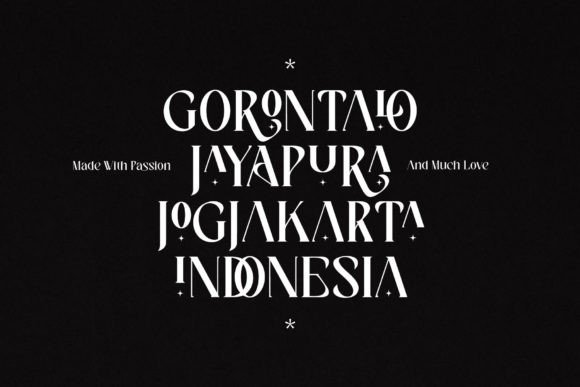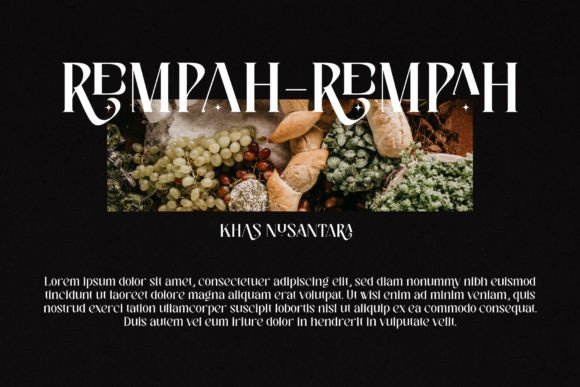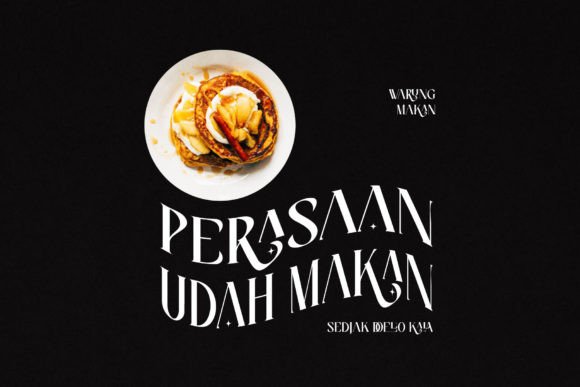
Introduction to Elruka Font
Have you ever been working on a creative project, pouring your heart and soul into it, only to realize that the perfect font is missing? This is where the Elruka Font comes to the rescue. With its classy and modern look, this versatile font is a game-changer for designers, allowing you to elevate your designs to the next level.
Whether you’re working on a logo, branding, invitation, or social media post, the Elruka Font is the perfect design resource to add a touch of sophistication and elegance. Its high-quality design makes it ideal for various applications, from wedding designs to stationery, and more. And the best part? You can download it for free, making it an accessible and valuable addition to your design toolkit.
With its transparent background and sleek lines, the Elruka Font is sure to make a lasting impression on your audience. In this article, we’ll delve deeper into the world of this stunning font and explore its many uses, so you can unlock its full potential and take your designs to new heights.
Key Features of Elruka Font
- Unique, high-quality design suitable for creative projects, including graphic design, digital art, and typography.
- Features a transparent background, allowing for seamless integration with other design elements and backgrounds.
- High-resolution design, ideal for printing and digital applications, with a resolution of up to 300 DPI.
- Elruka Font is a versatile design resource, suitable for a wide range of creative projects, from logos and branding to posters and digital art.
- Comes in a range of sizes, from small to large, making it easy to customize and adapt to different design requirements.
Honest Review: Elruka Font
I recently stumbled upon the Elruka Font, a free download that caught my attention with its unique style and high quality. As a designer, I’m always on the lookout for reliable design resources to elevate my creative projects. The Elruka Font definitely delivers.
- ✨ Unique and creative design style that adds a touch of personality to any project
- ✨ High-quality font files that ensure crisp and clear text display
- ✨ Transparent background option, making it easy to integrate with various design elements
While the Elruka Font excels in many areas, there are a few limitations to consider. For instance:
- ⚠️ Limited character set, which may not be ideal for lengthy text-based projects
Overall, I’m impressed with the Elruka Font’s potential to enhance creative projects. Its unique style and high-quality design make it a valuable addition to any designer’s toolkit. Just be sure to consider the limitations before using it for commercial purposes.
Elruka Font Overview
The Elruka Font is a high-quality design resource ideal for creative projects. With its unique style and transparent background, it adds a touch of elegance to any design. You can download it for free and use it in various applications.
Tips for Getting the Most Out of Elruka Font
For optimal results, use the Elruka Font in conjunction with other high-quality design resources. Experiment with different font sizes, colors, and effects to create a unique look. You can also use it to add a touch of elegance to your designs.
The Elruka Font is ideal for a variety of creative projects, including:
– Branding and logos
– Brochures and flyers
– Infographics and presentations
– Web design and digital art